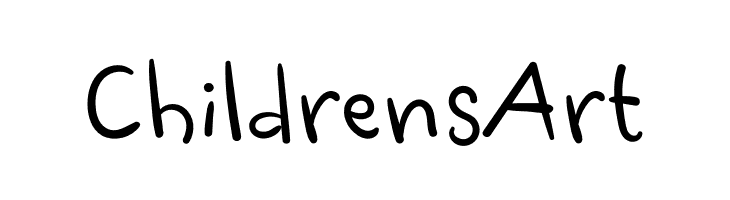
A modern, elegant script font with flowing, cursive strokes.
An elegant script font with flowing, cursive characters and graceful swashes.
A bold, cursive script font with a dynamic and fluid style.
A bold, playful handwritten font with energetic and flowing letterforms.
A bold, dynamic font with sharp, angular edges and a striking appearance.
A lively, expressive handwritten font with fluid strokes and playful curves.
A playful, hand-drawn font with a casual and friendly style.
A playful, handwritten font with tall, narrow letters and a casual style.
A playful, handwritten font with rounded, consistent strokes and a casual feel.
A bold, expressive handwritten font with a brush-like texture.
A bold, expressive handwritten font with dynamic strokes.
A bold, decorative font with vintage, ornate detailing.
A bold, angular script font with a modern, edgy style.
An elegant and whimsical font with thin, elongated strokes and playful curves.
A bold, brush-stroke style font with dynamic and artistic flair.
A tall, narrow font with a modern and sleek design.
A playful and elegant script font with a handwritten touch.
A playful and elegant script font with flowing, cursive letterforms.
A lively, expressive script font with elegant, flowing strokes.
An elegant script font with ornate, flowing characters and a classic appeal.
A dynamic, expressive handwritten font with brush-like strokes.
Hand-drawn, textured arrow swashes with a sketchy look.
A bold, ornate blackletter font with a gothic, medieval style.
A casual, handwritten font with a flowing and dynamic style.
A dynamic and flowing script font with elegant, connected letterforms.
A bold, geometric font with a modern and assertive style.
A lively, cursive script font with fluid, interconnected characters and varying stroke widths.
A lively, handwritten script font with fluid, dynamic strokes and medium contrast.
A fluid, cursive font with elegant, signature-like strokes.
A bold and fluid script font with interconnected letters and a modern flair.
A lively and expressive handwritten font with dynamic strokes.
A bold, geometric font with a strong, modern presence.
A bold, 3D outlined font with a futuristic and dynamic style.
A bold, 3D italic font with a futuristic and dynamic style.
A bold, condensed font with a geometric and impactful style.